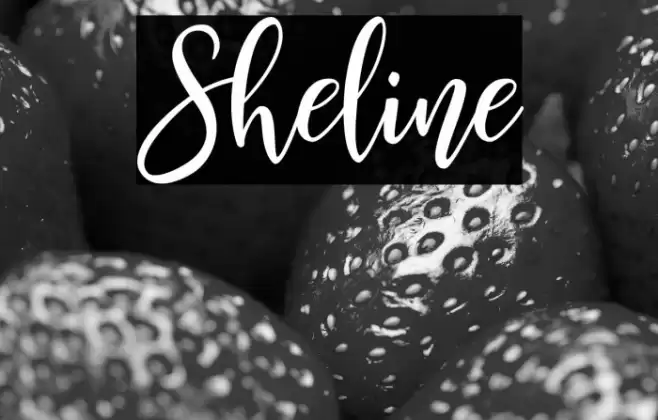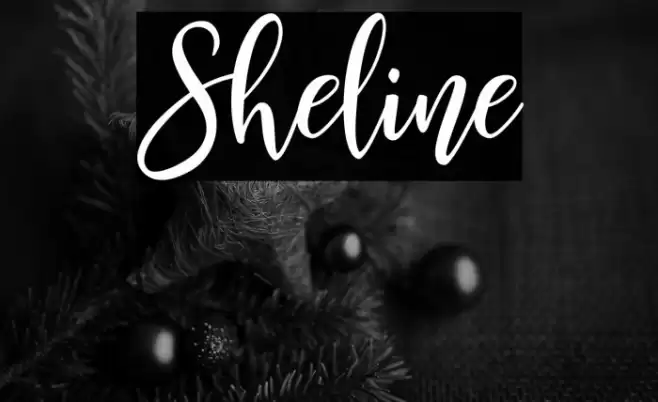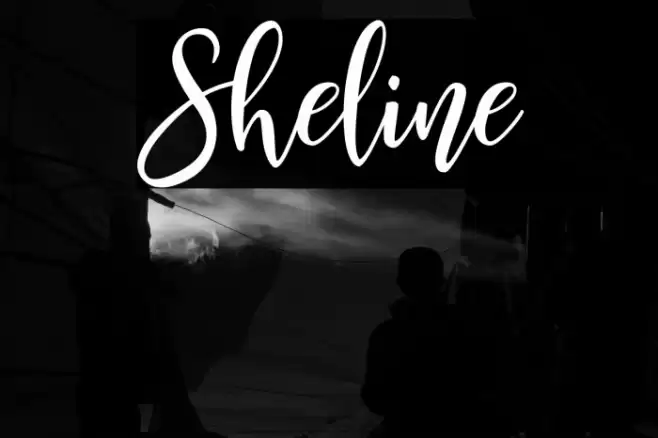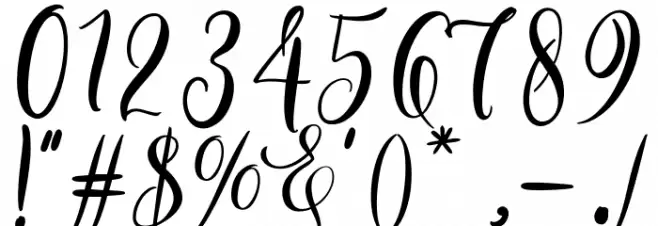
Sheline Font
Sheline Description
This font features an elegant and flowing script style, characterized by its smooth, cursive strokes and artistic flair. The uppercase letters are bold and sweeping, with a distinct calligraphic influence that adds a touch of sophistication. The lowercase letters maintain a consistent fluidity, enhancing the overall graceful appearance. Numbers and special characters are designed with the same attention to detail, ensuring a cohesive look across all elements. The font's artistic nature makes it suitable for creative projects that require a personal and stylish touch.
An elegant, flowing script font with a calligraphic influence from Regular fonts.
- Proposed Projects: Ideal for wedding invitations, greeting cards, branding, and decorative projects.
- Use Case: Logos, Invitations, Decorative text